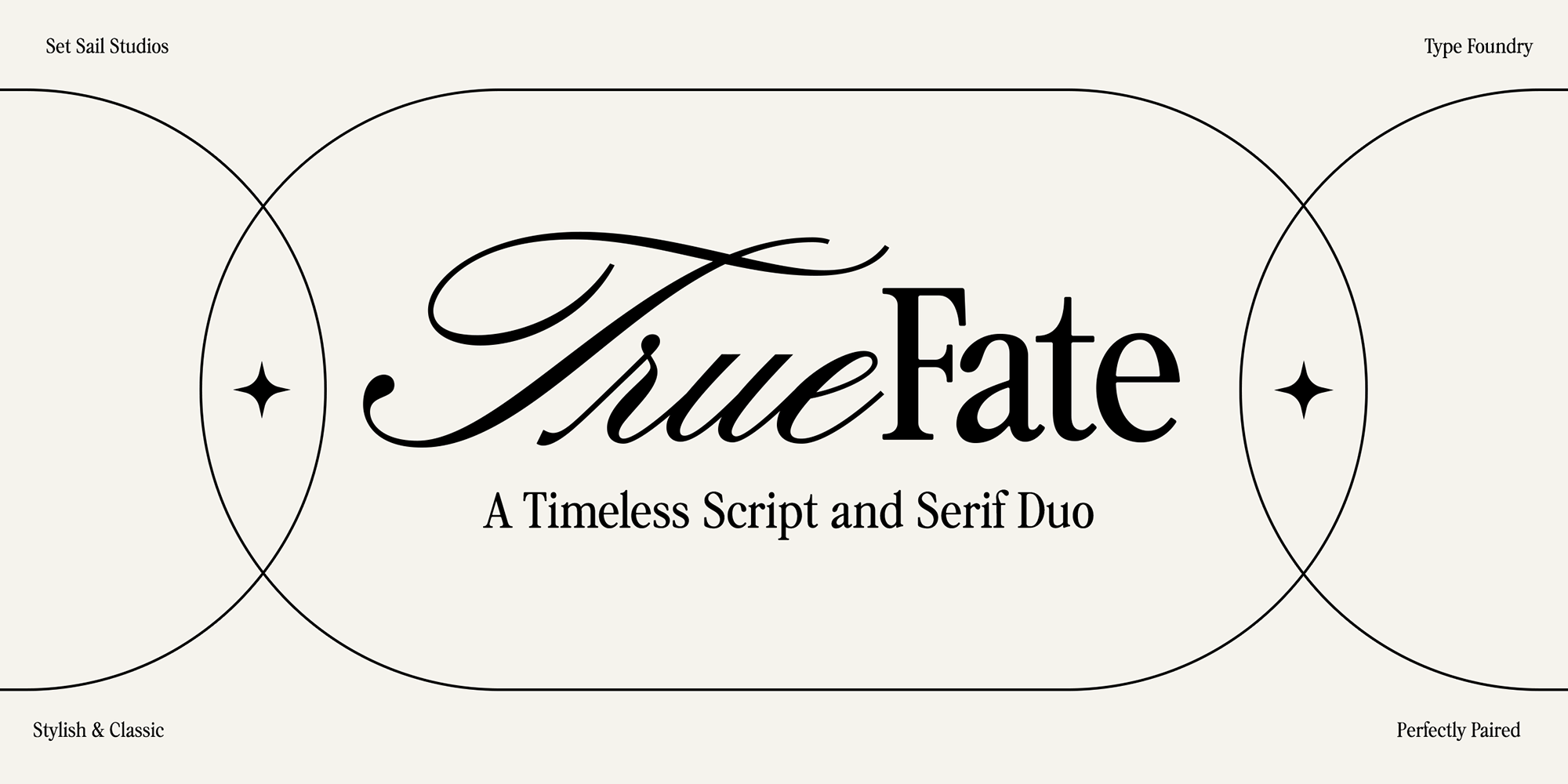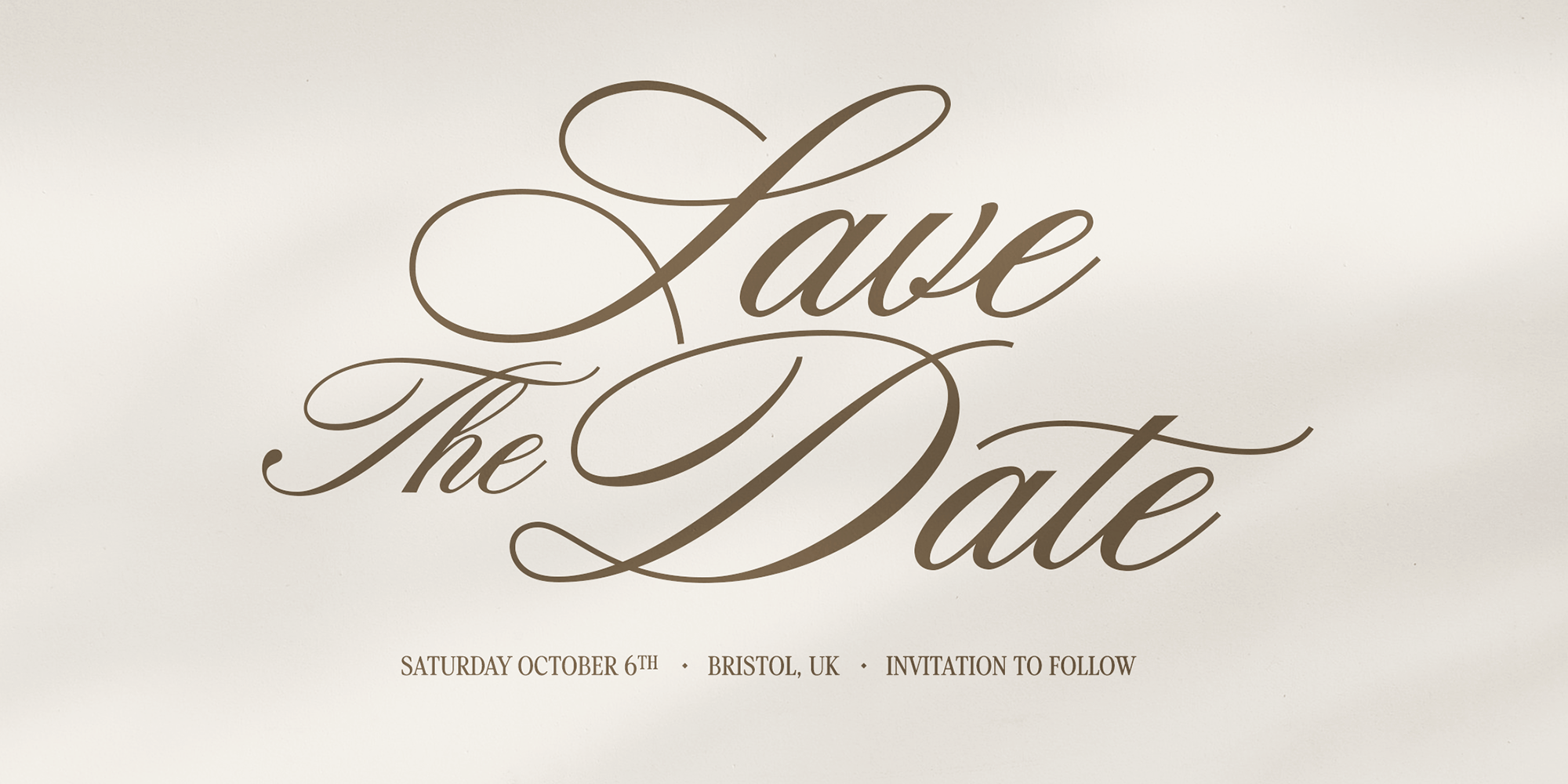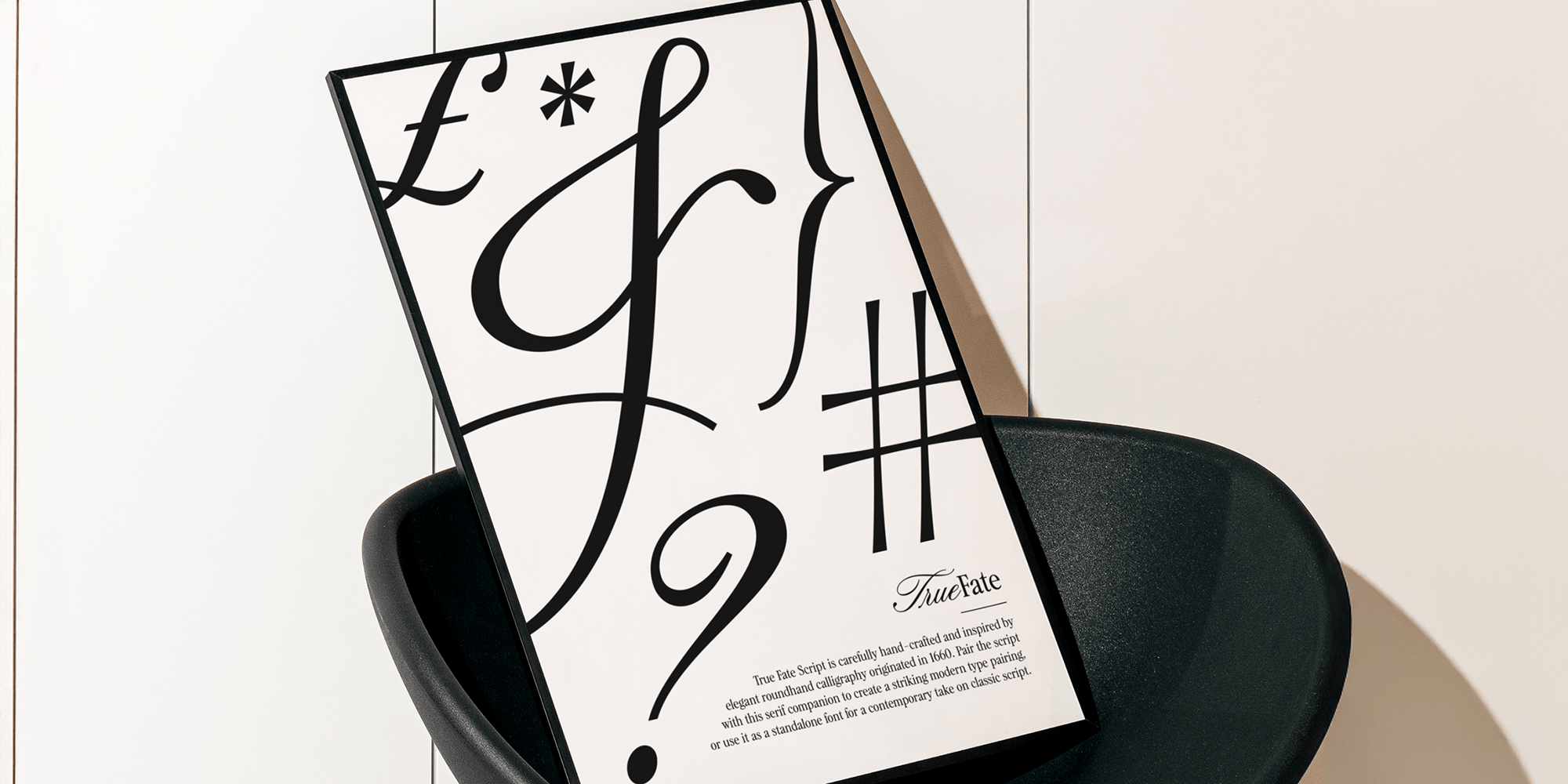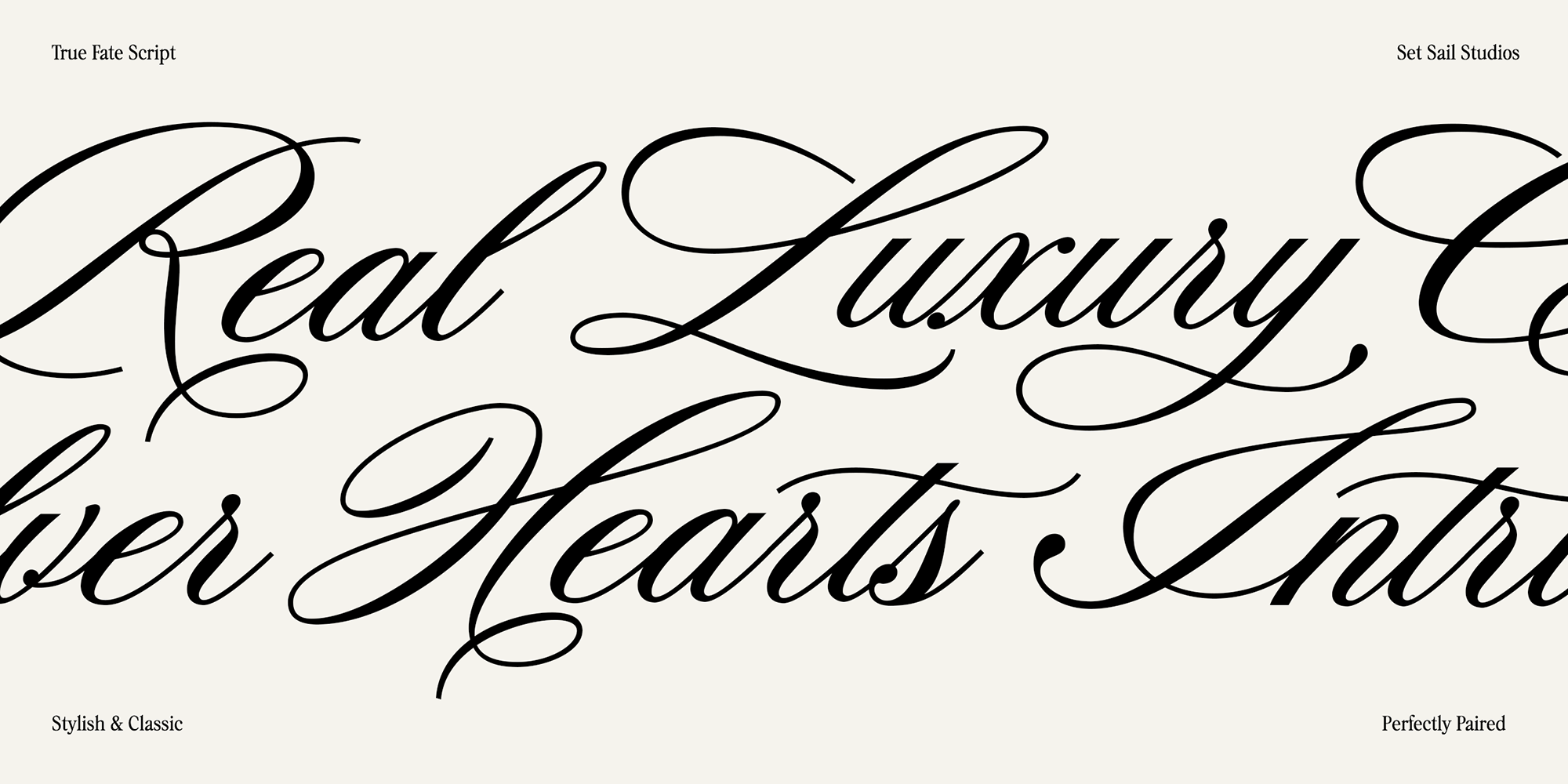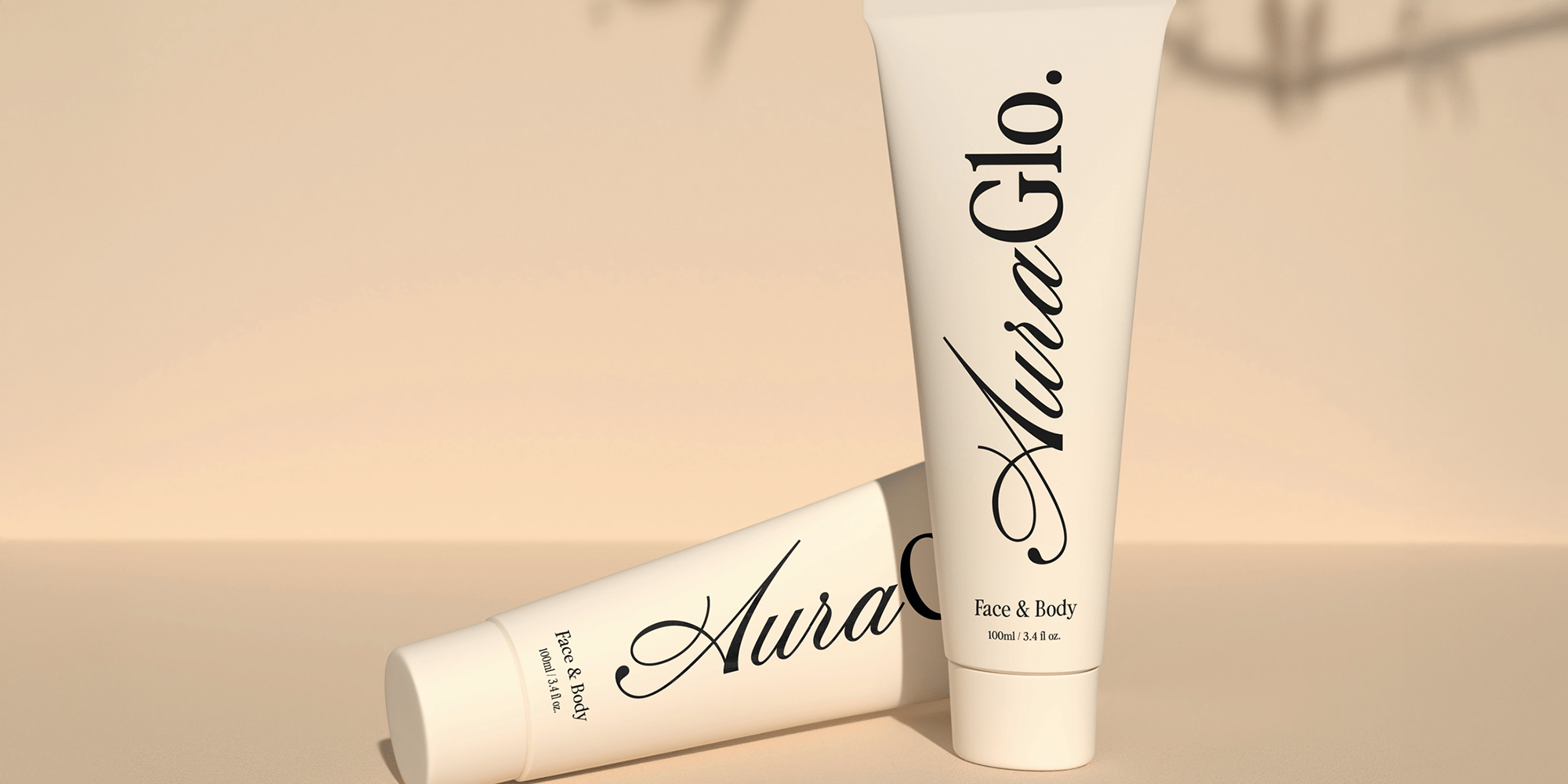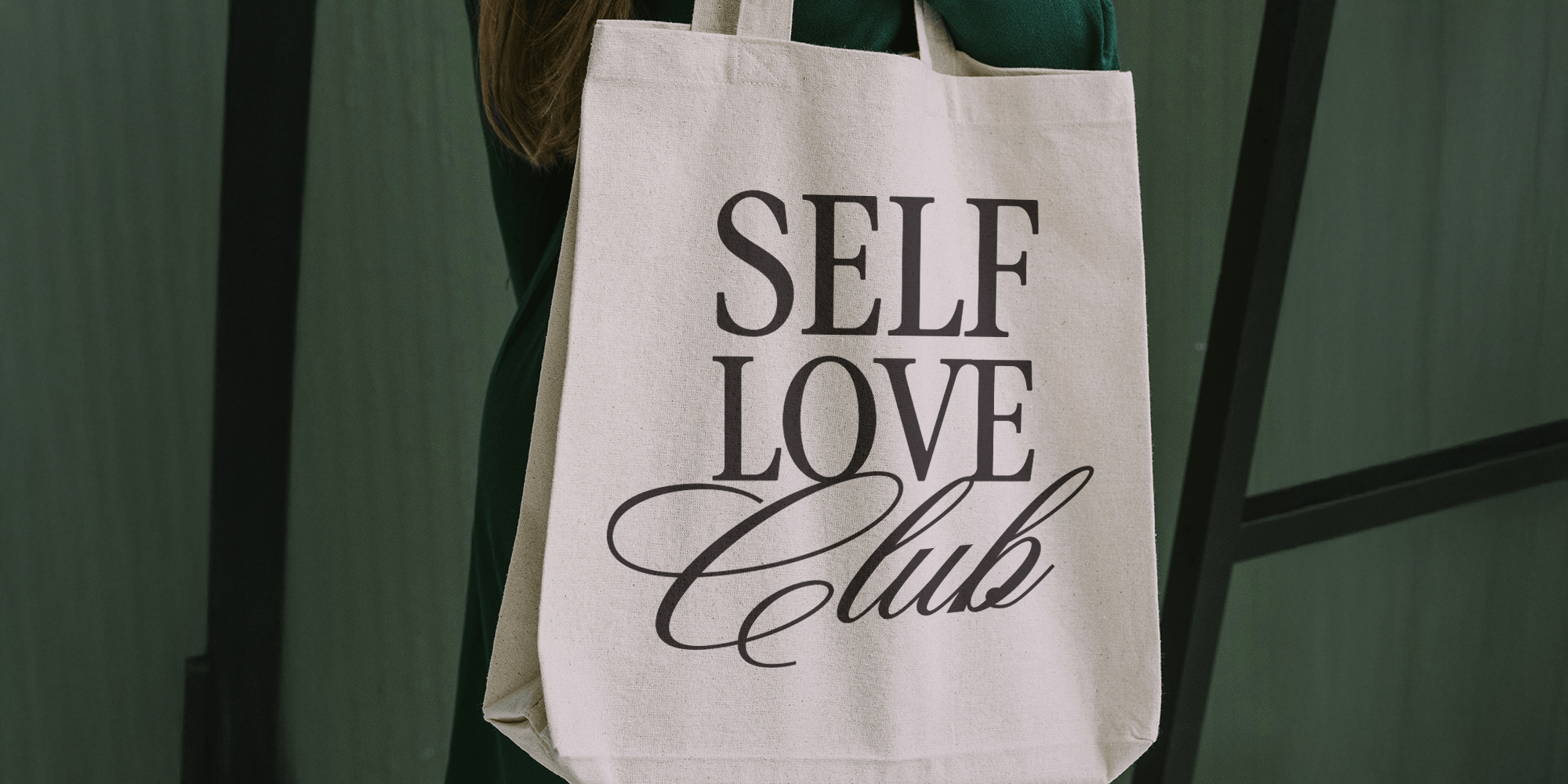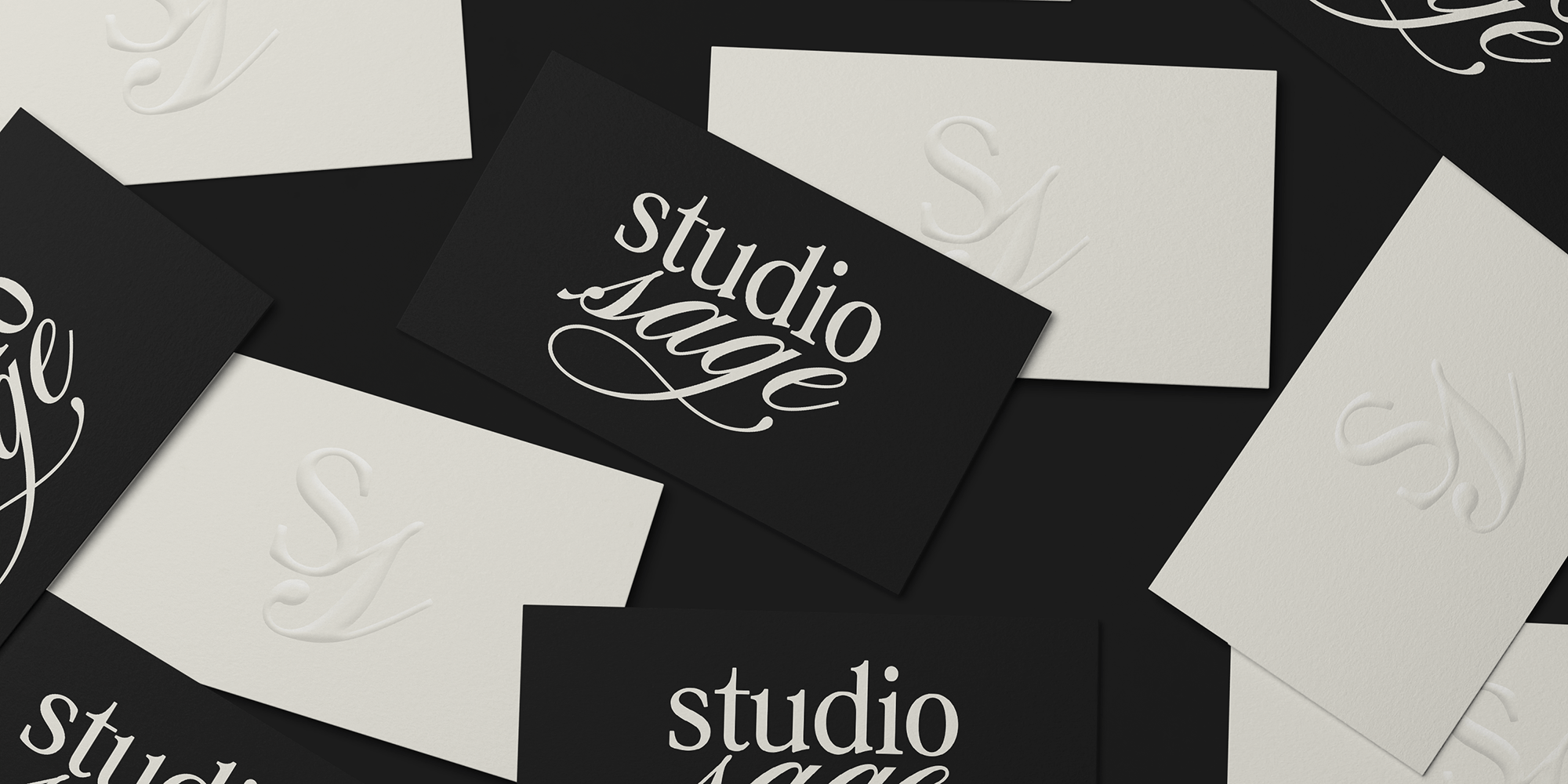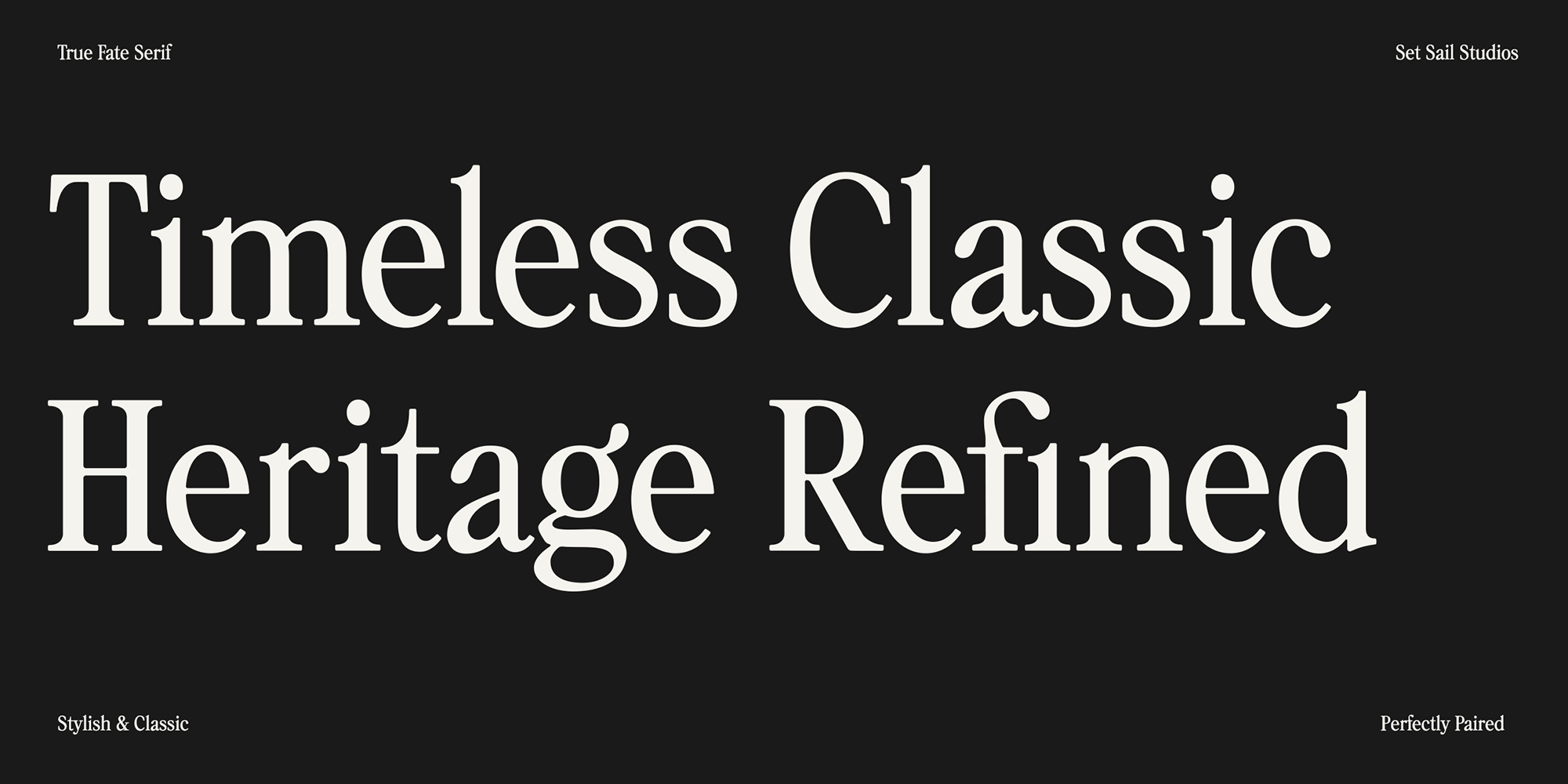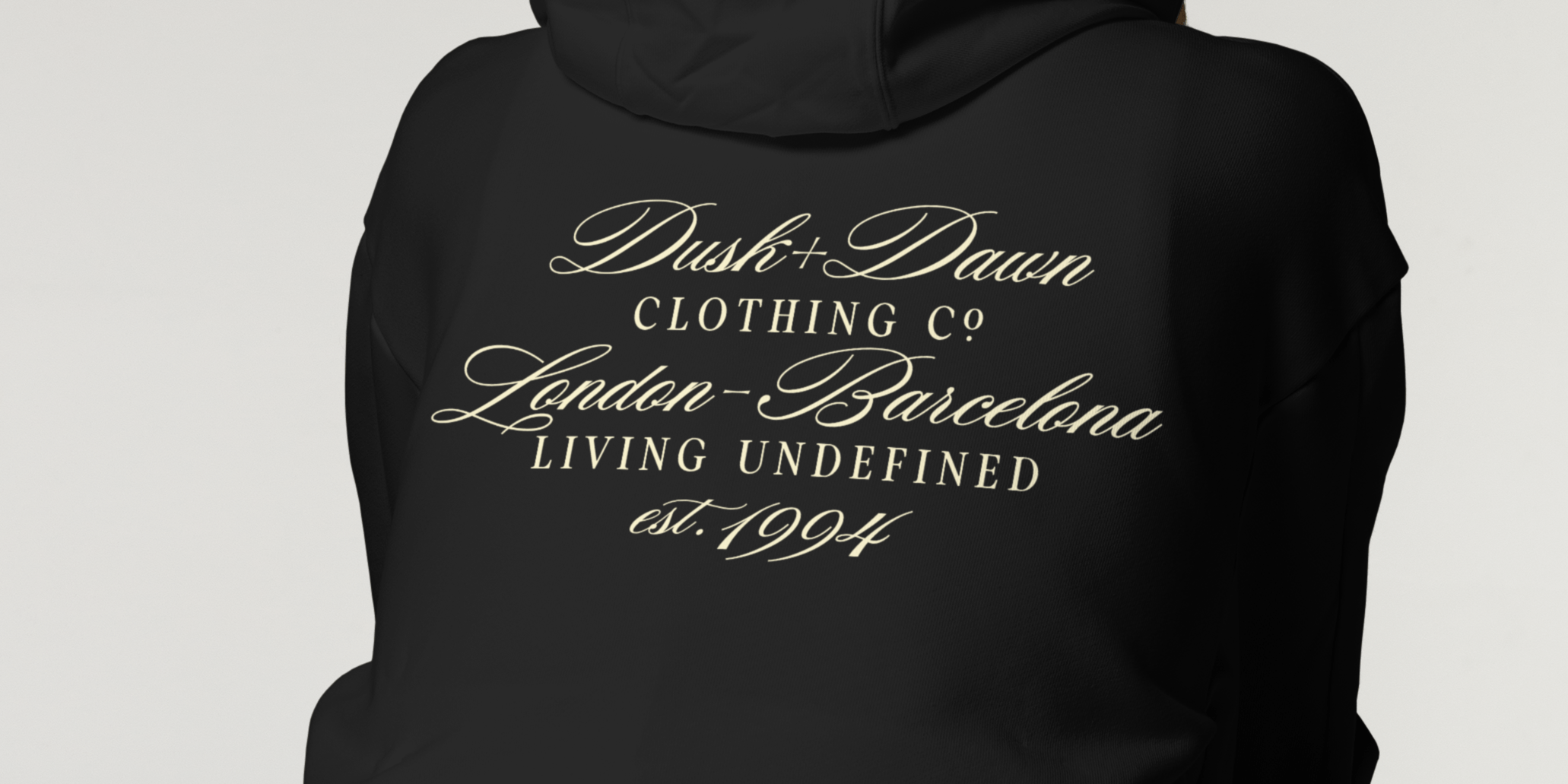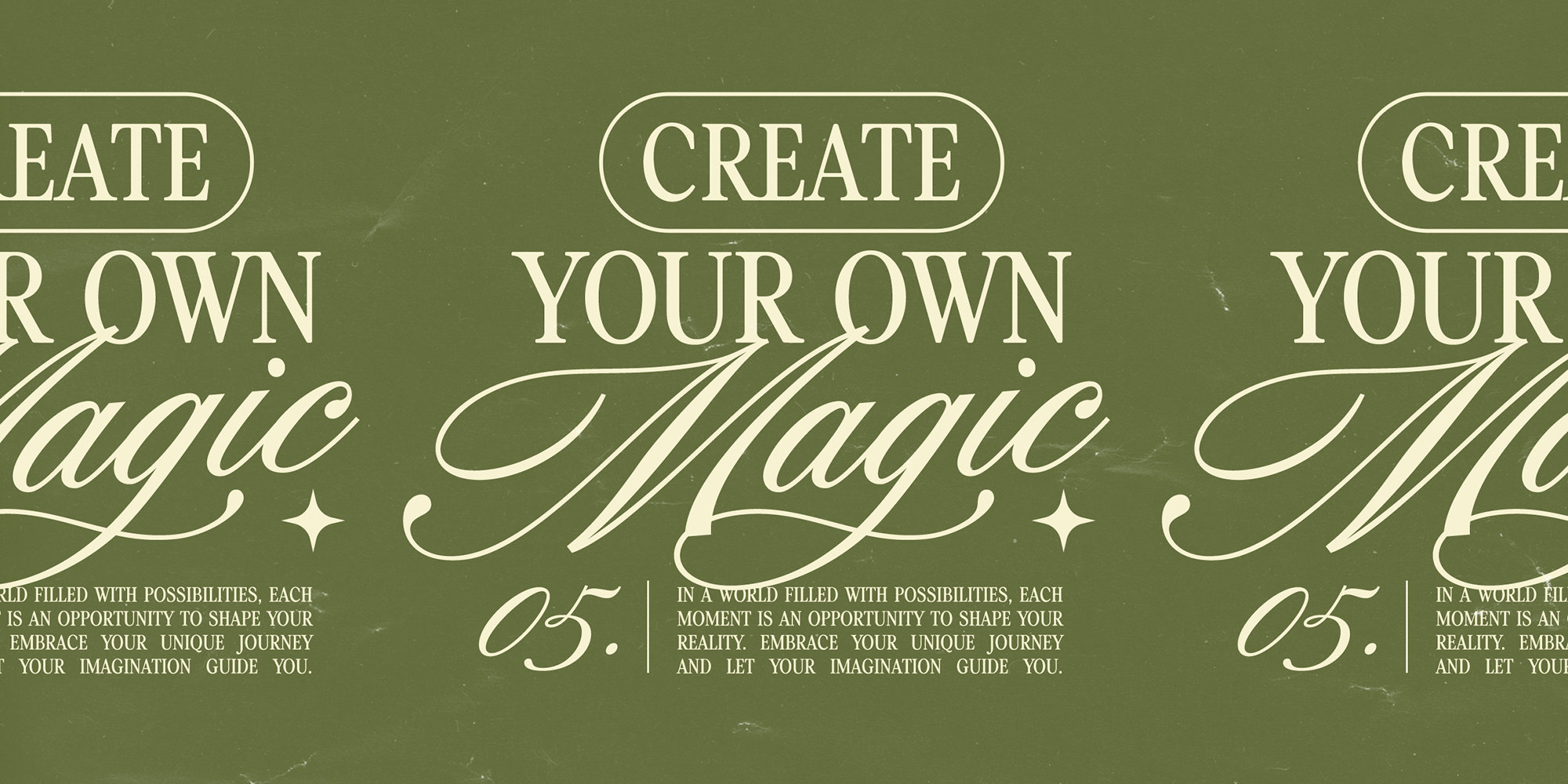
True Fate
Introducing the True Fate Font Duo - a perfect pairing of Timeless script and Classic serif fonts. These fonts have been carefully designed from the ground up to work in harmony, saving you the work of finding that ideal font pairing for your branding or print projects.
True Fate Script is a clean, cursive calligraphy font based on traditional roundhand script, with a little extra flair added for a strikingly elegant and stylish modern aesthetic.
True Fate Serif takes inspiration from nostalgic headline fonts, refined to give you a hugely versatile and classic serif which can be used in a wide range of projects.
These fonts can be used as strong standalone fonts containing full sets of upper and lowercase characters, or combined with ease for more creative display projects in need of a font pairing which effortlessly contrasts yet compliments one another.